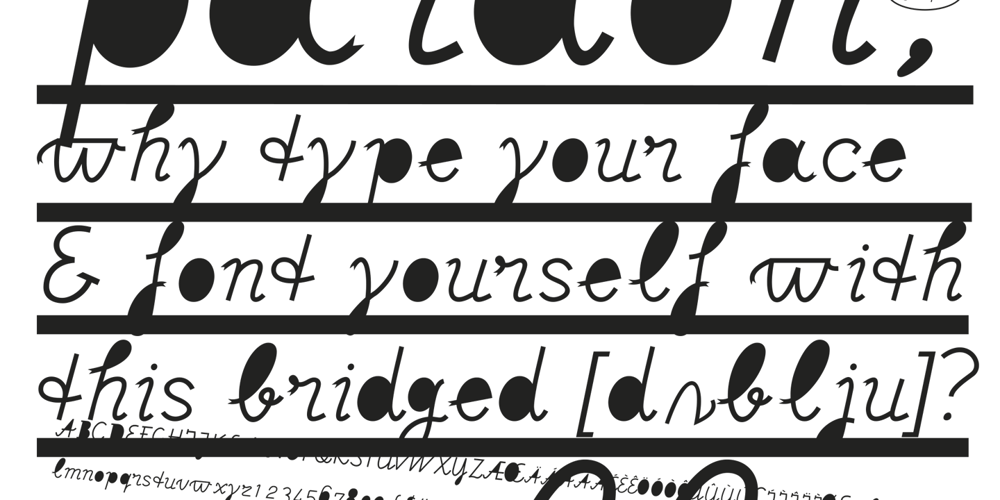
DF Ariënne Font Family was designed by Ko Sliggers and published by Dutchfonts. DF Ariënne contains 1 styles and family package options. The Etalage-script has been drawn for the first time in the year 2000, based on a early 20th century lettering stencil with what farmer Boelema at Lalleweer stenciled his grainsacks. Eventually the script letter was developed as a typeface with a wink to the ‘lost’ displaytypes for the ‘display window’ of graphic designer Ariënne Boelens, who in exchange made the website www.lalleweer.nl. What originated the Ariënne should be evident now.